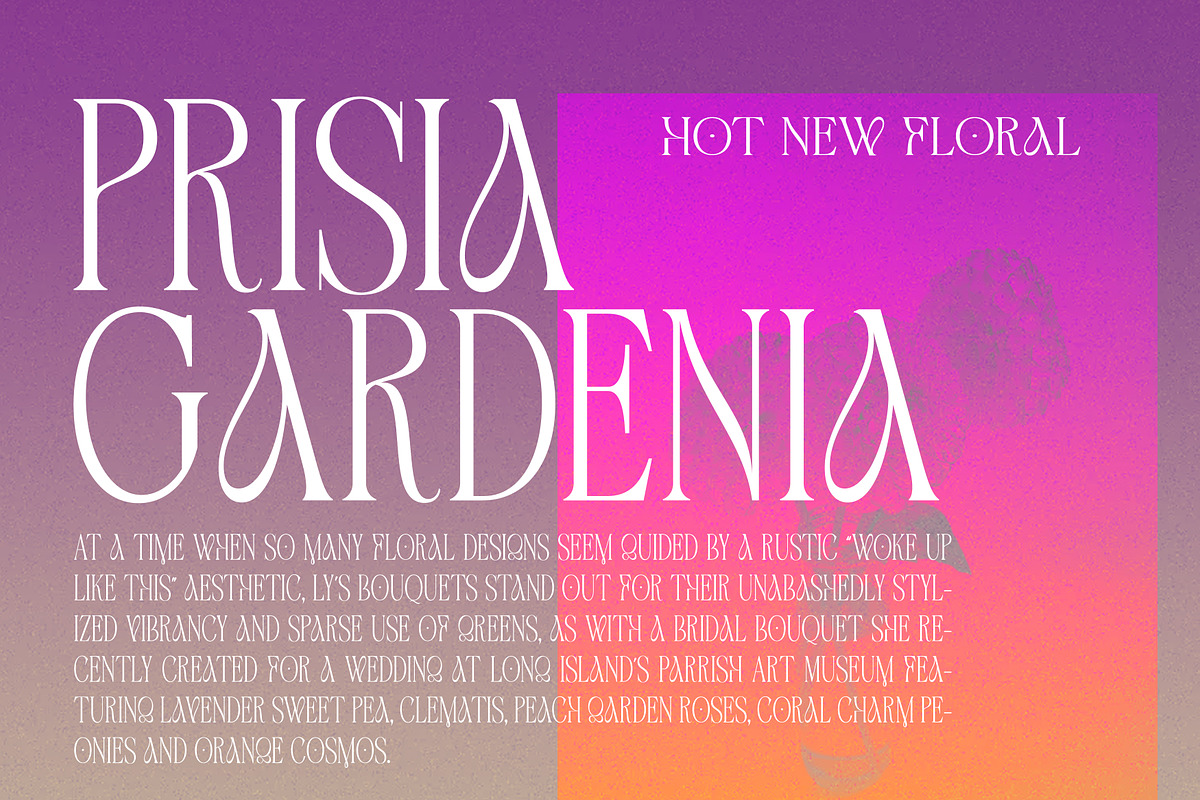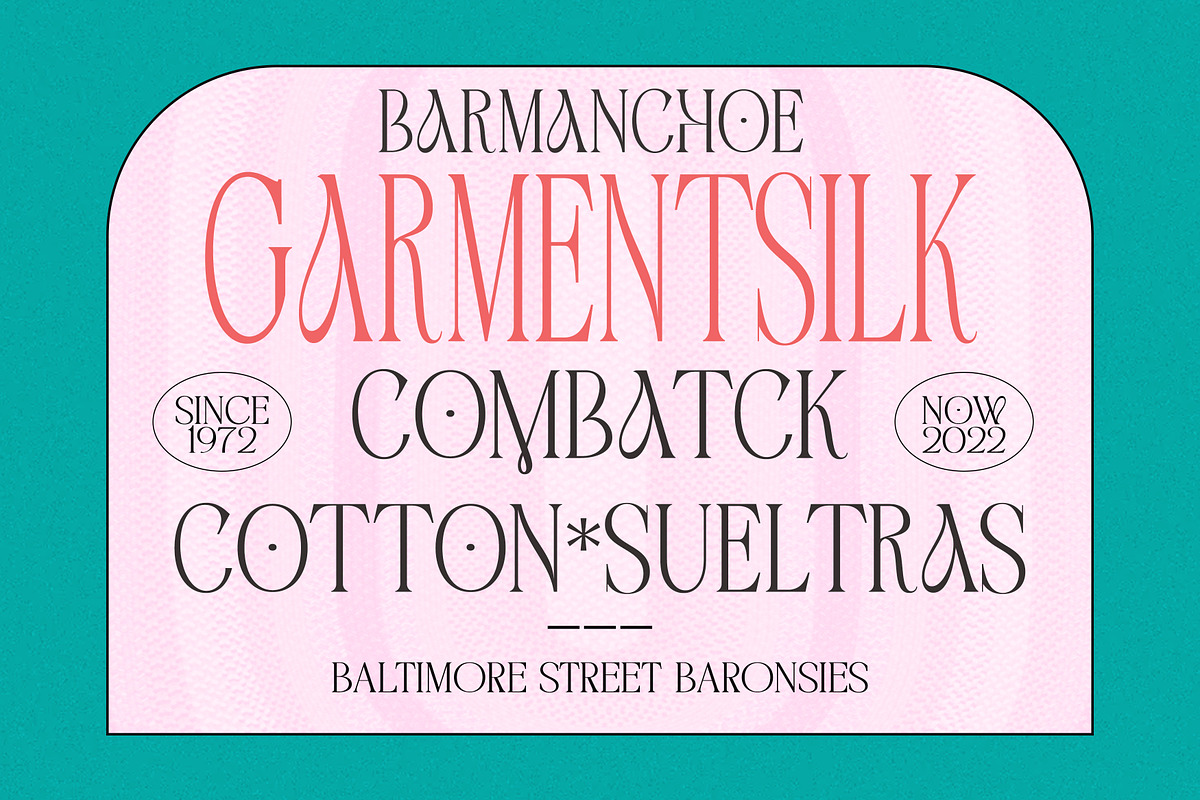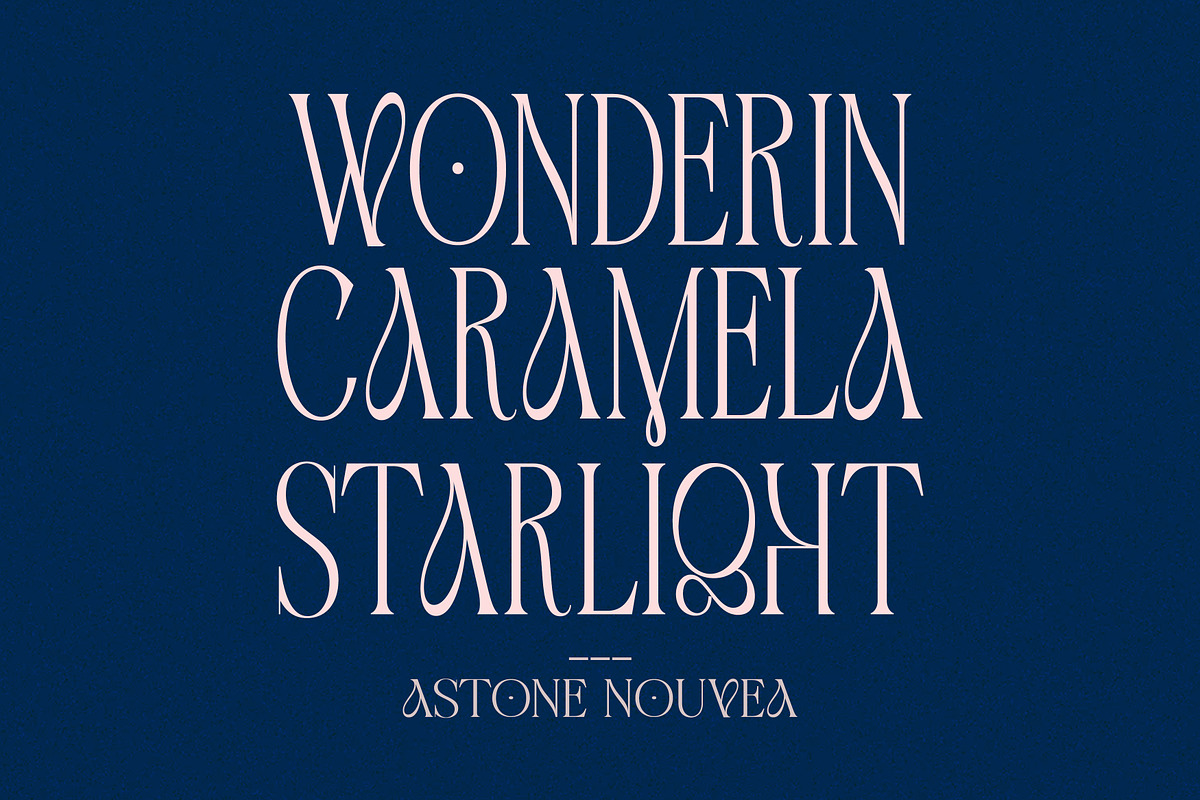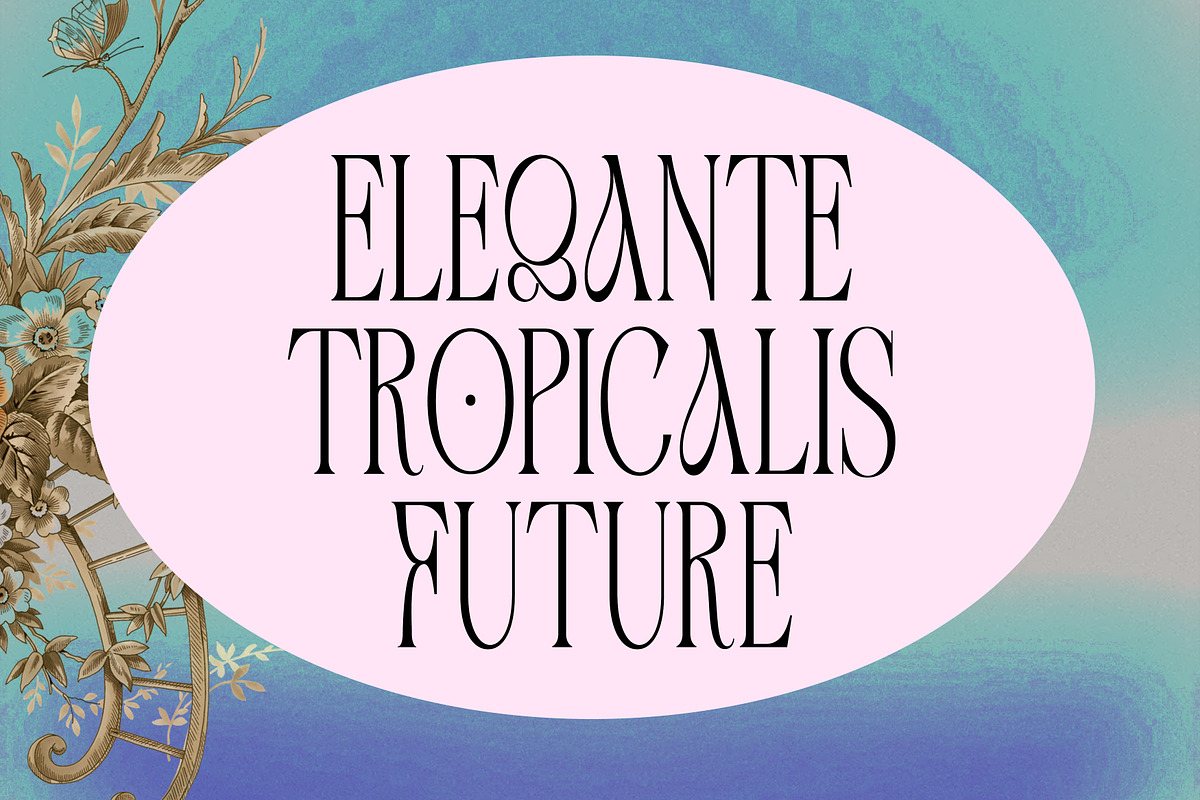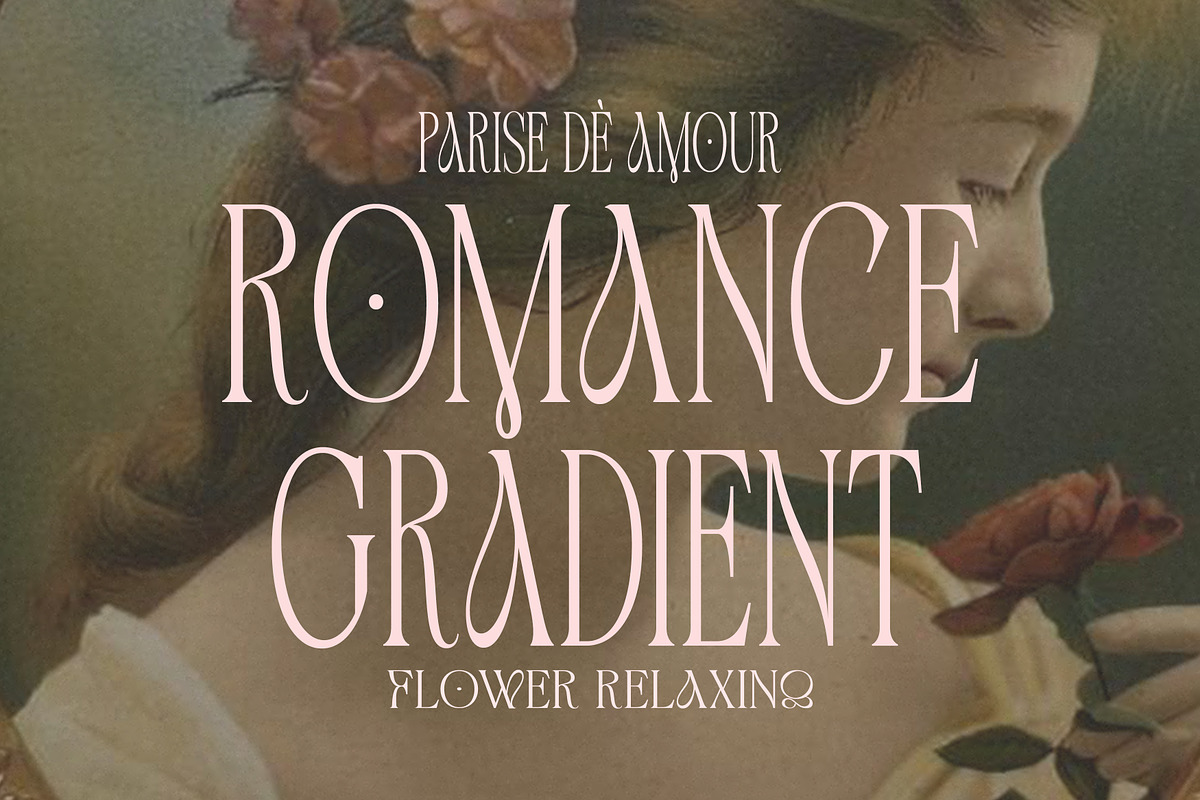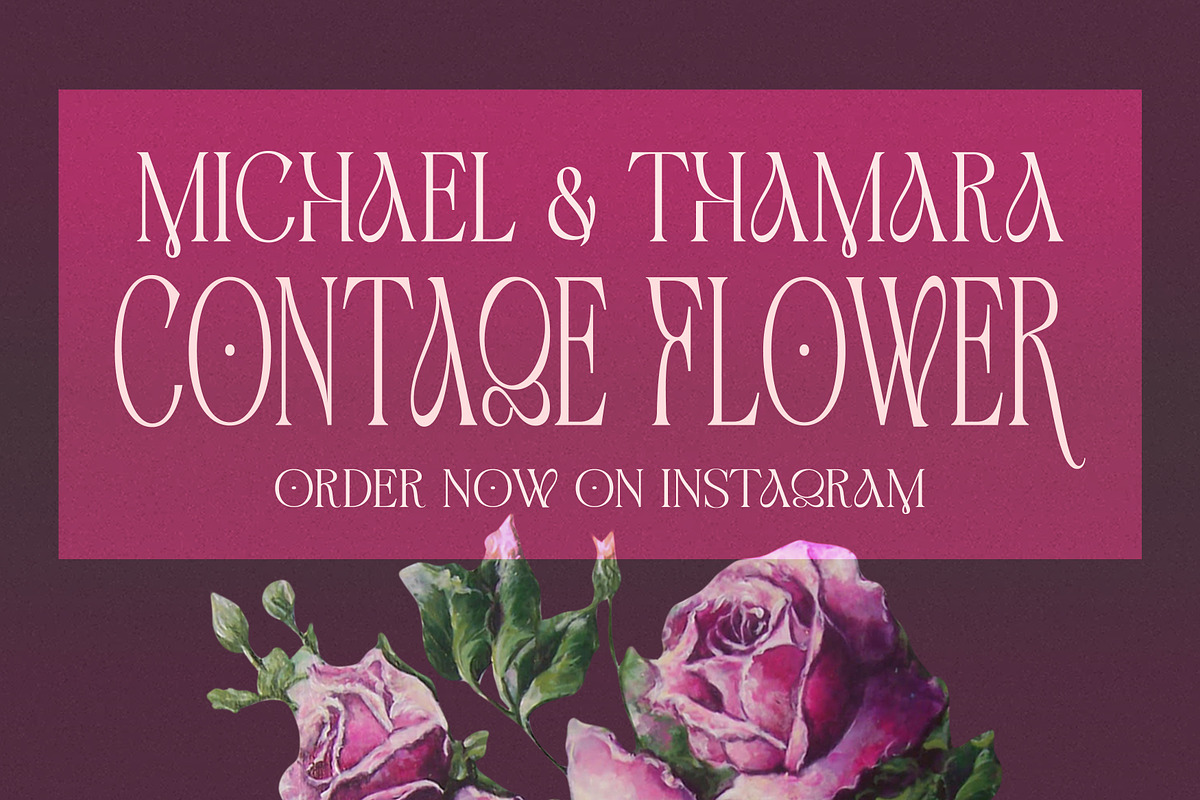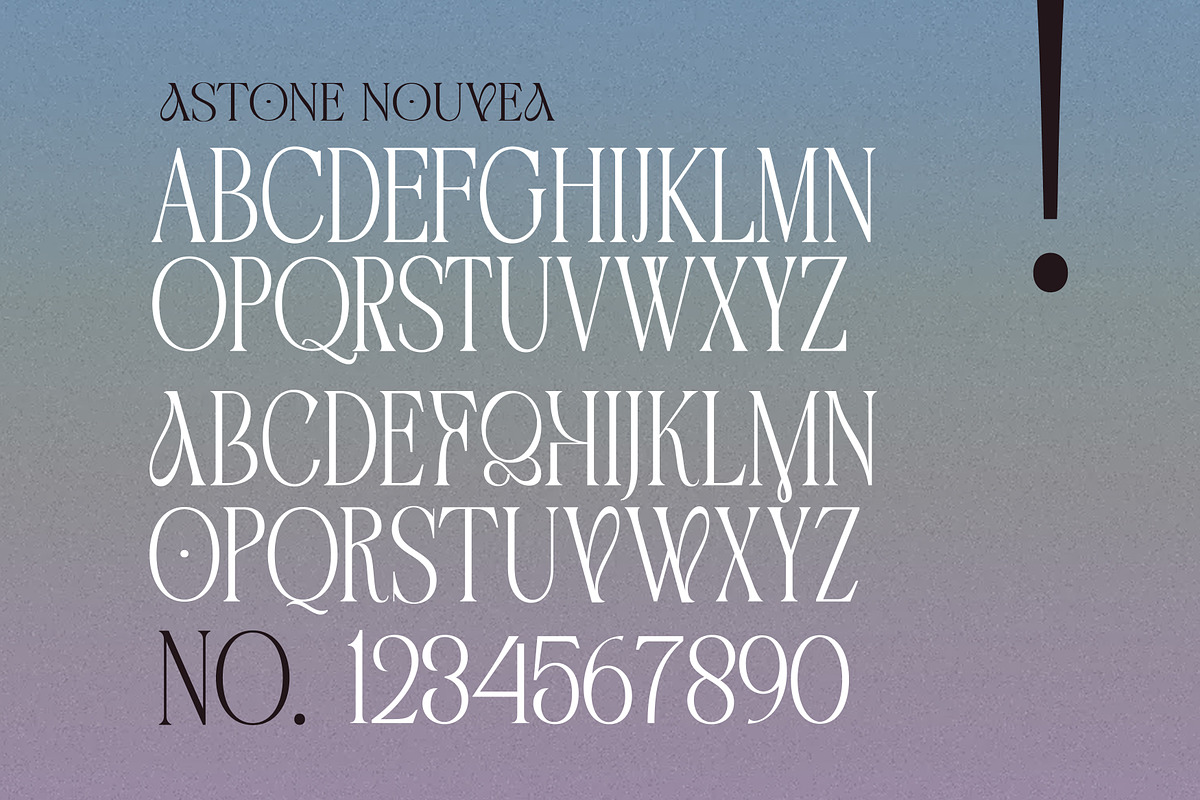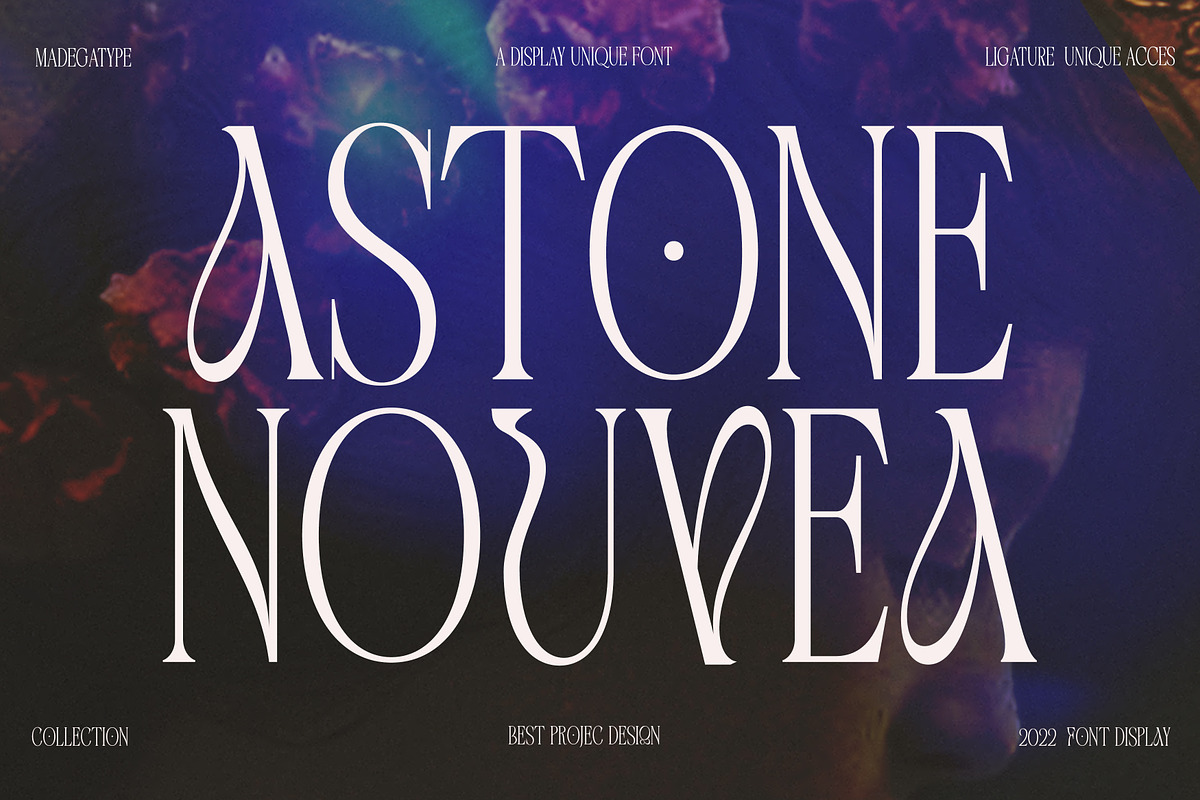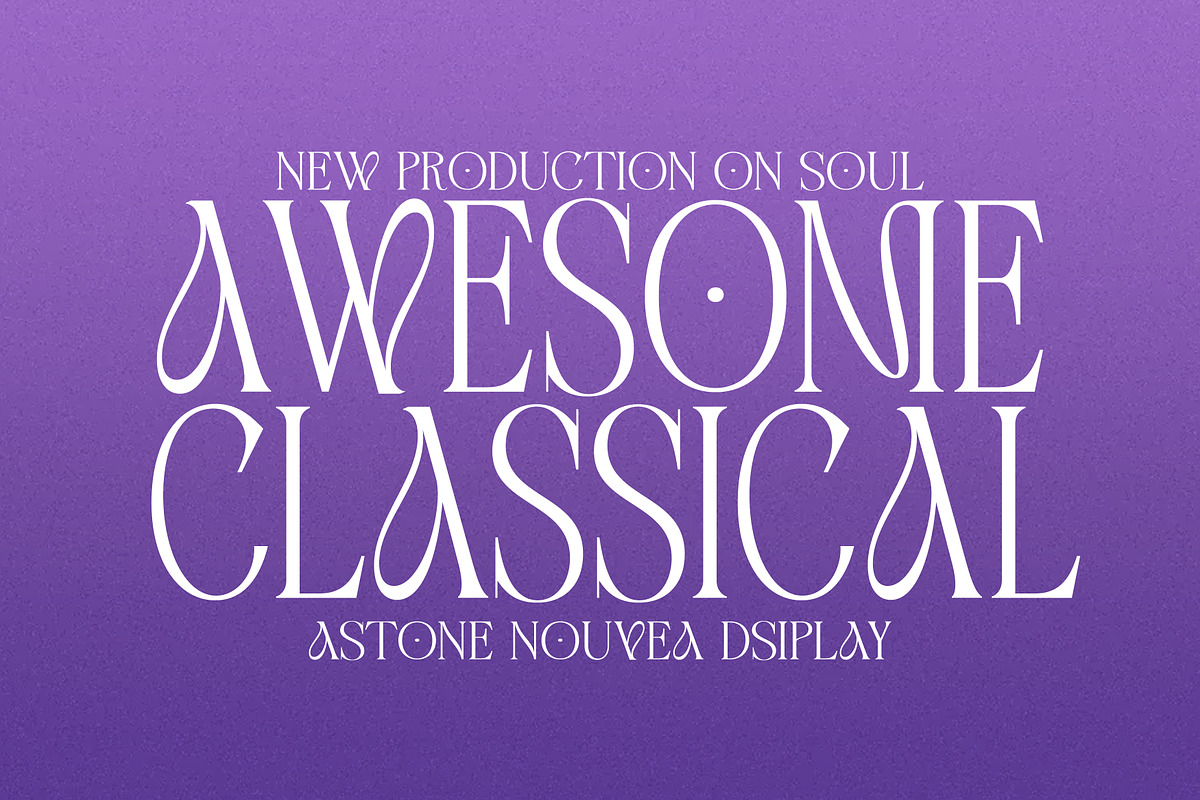
Astone Nouvea
Astone Nouvea is a unique and very elegant font for brand and logo designs.
With this font, it will be easy for you to fulfill the wishes of customers who are often asked to design a logo with a unique style but with an elegant shape. So, we tried to brainstorm and come up with this font to get ideas out. It is perfect for BRANDING and LOGO DESIGN. You will get a classy, elegant, and of course unique logo with this font.